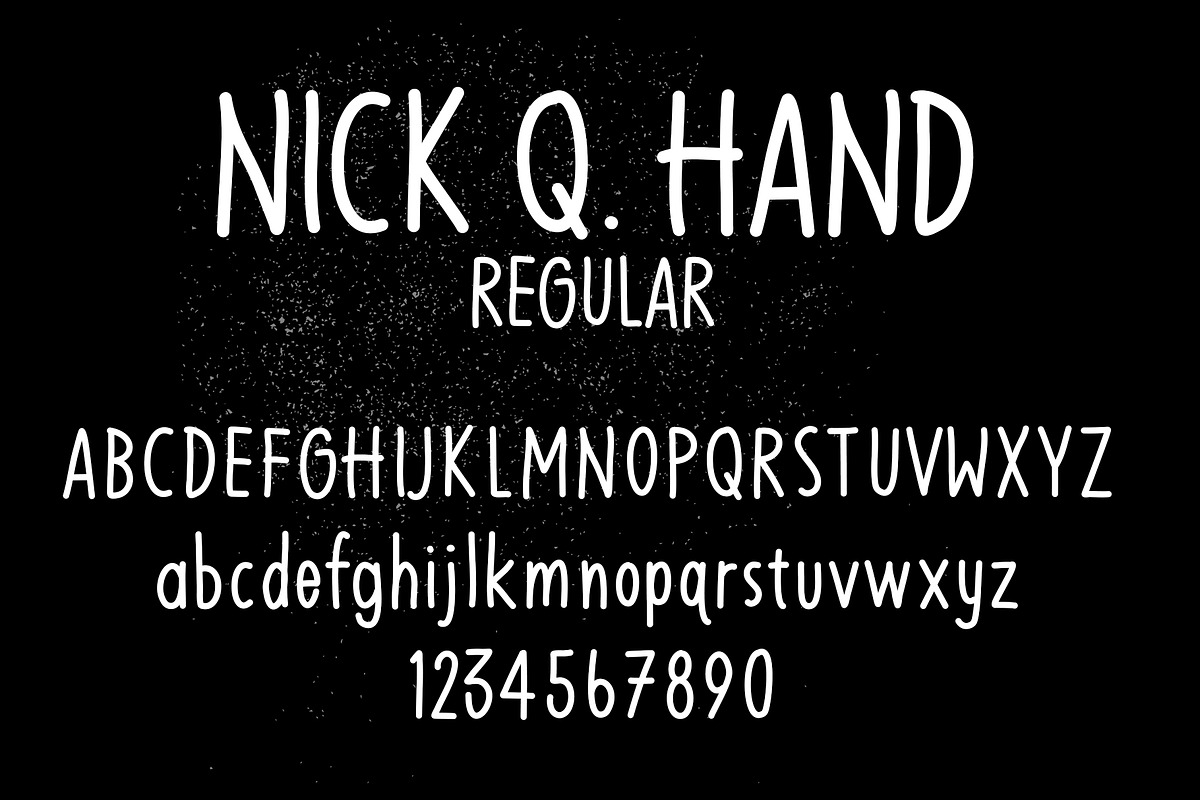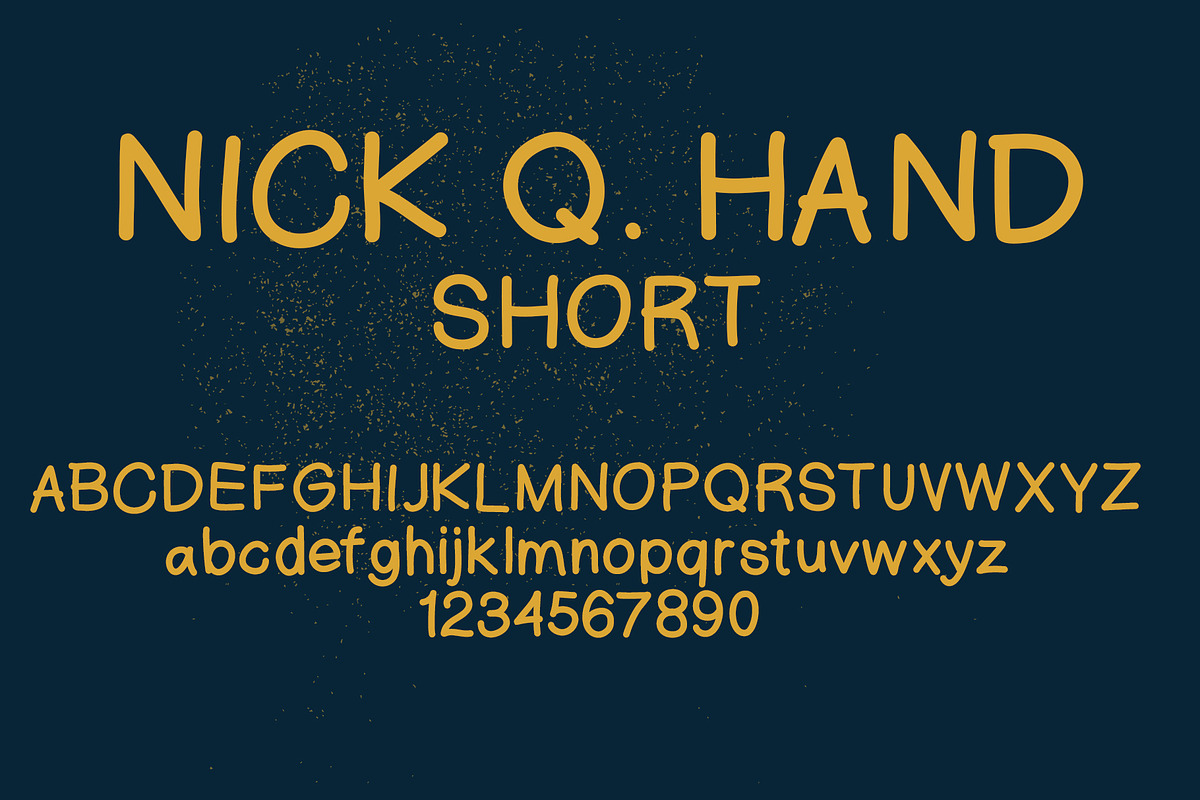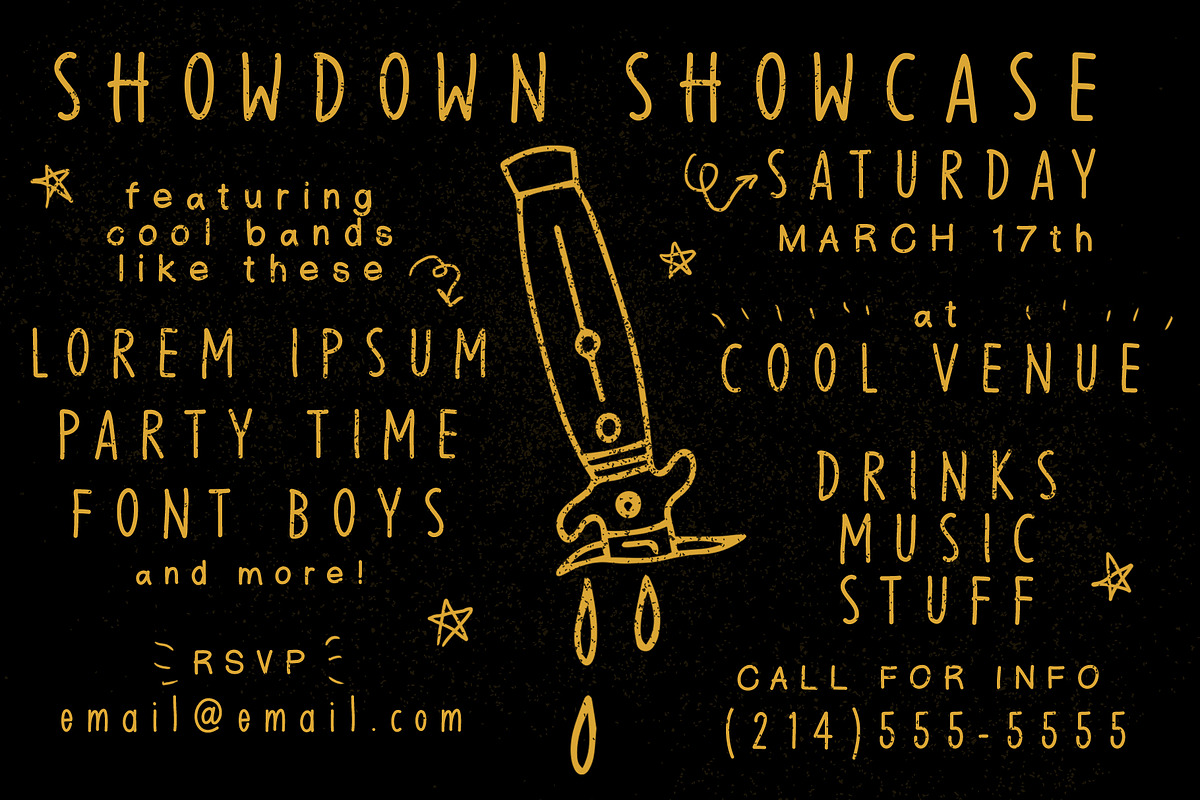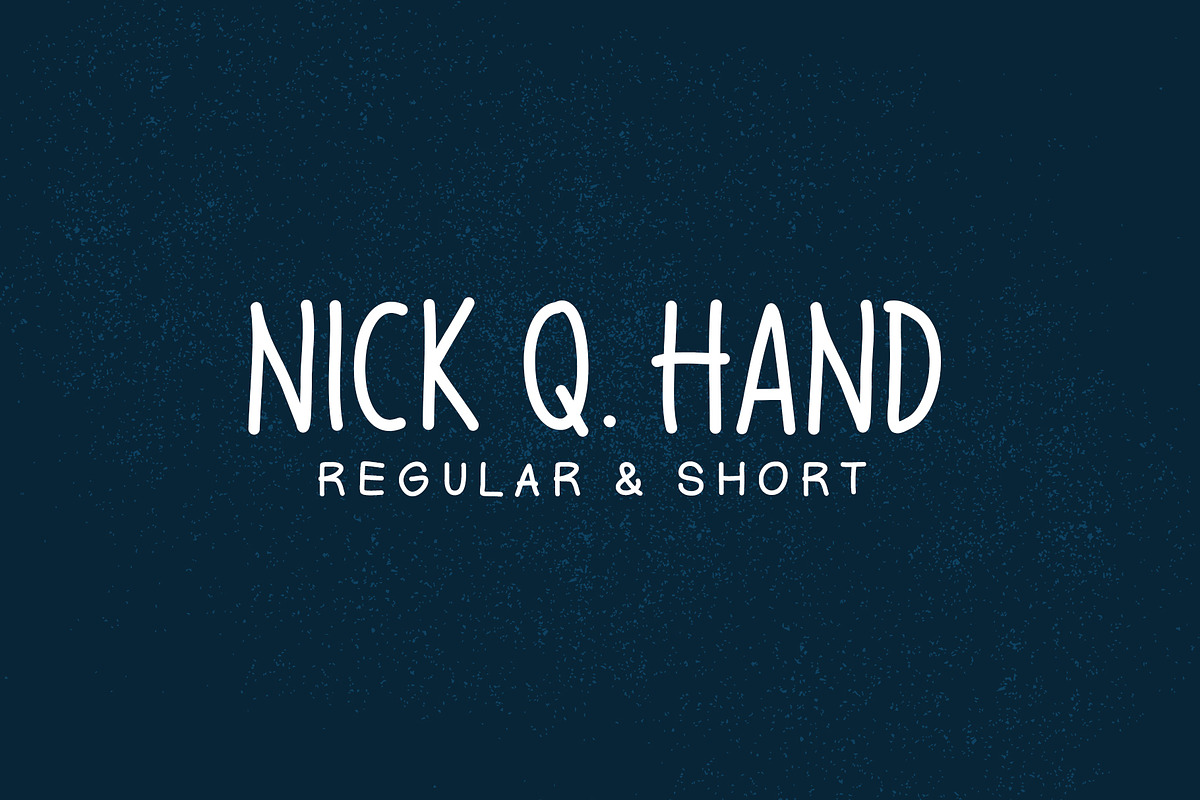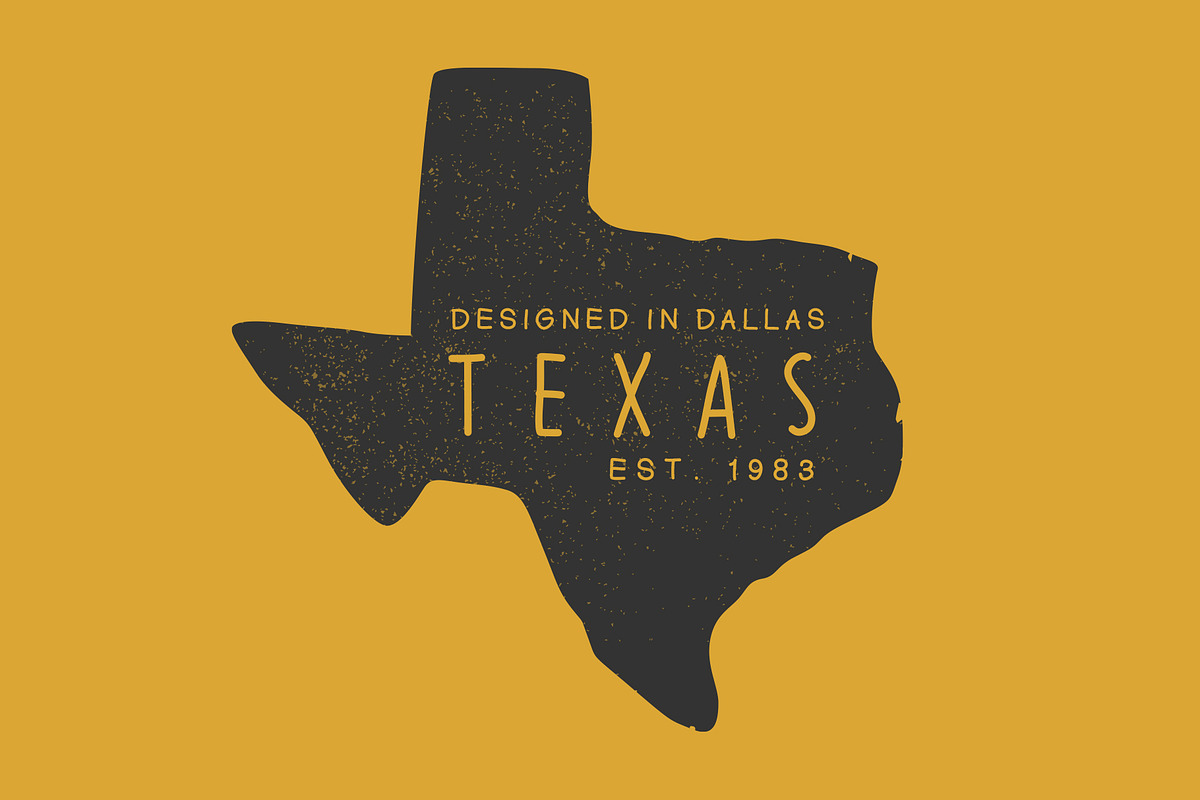
Nick Q Hand Font
The Nick Q Hand font is a hand drawn digital font that is based on my hand style that I frequently use on poster art and flyers for commissions. Originally made for clients who wanted to make their own edits to art I was paid to create for them.